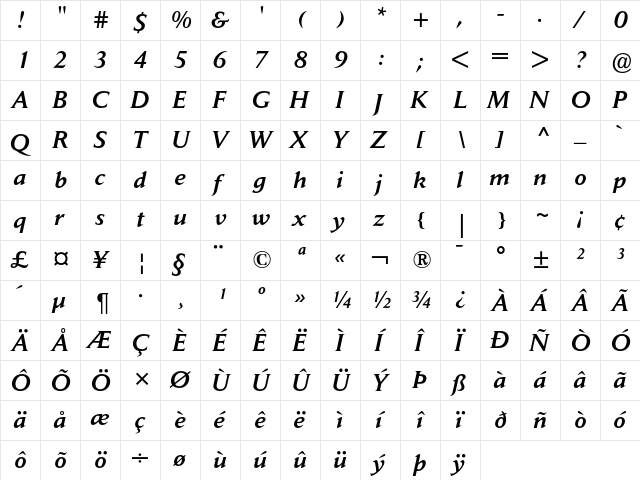
Jaeger Daily News Medium Italic
Design Context for Jaeger Daily News Typeface
Jaeger Daily News takes a measured approach to typography — its balanced proportions and neutral character make it a reliable workhorse for both digital and print work. Its italic angle brings a sense of urgency and motion to the letterforms.
Pro Tip: Use Jaeger Daily News for emphasis, pull quotes, and subheadings where its slanted energy can add rhythm to the layout.